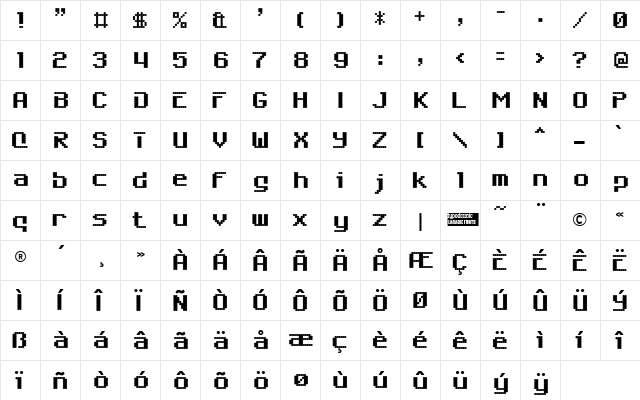
6809 Chargen Regular
Design Context for 6809 Chargen Typeface
6809 Chargen takes a measured approach to typography — its balanced proportions and neutral character make it a reliable workhorse for both digital and print work.